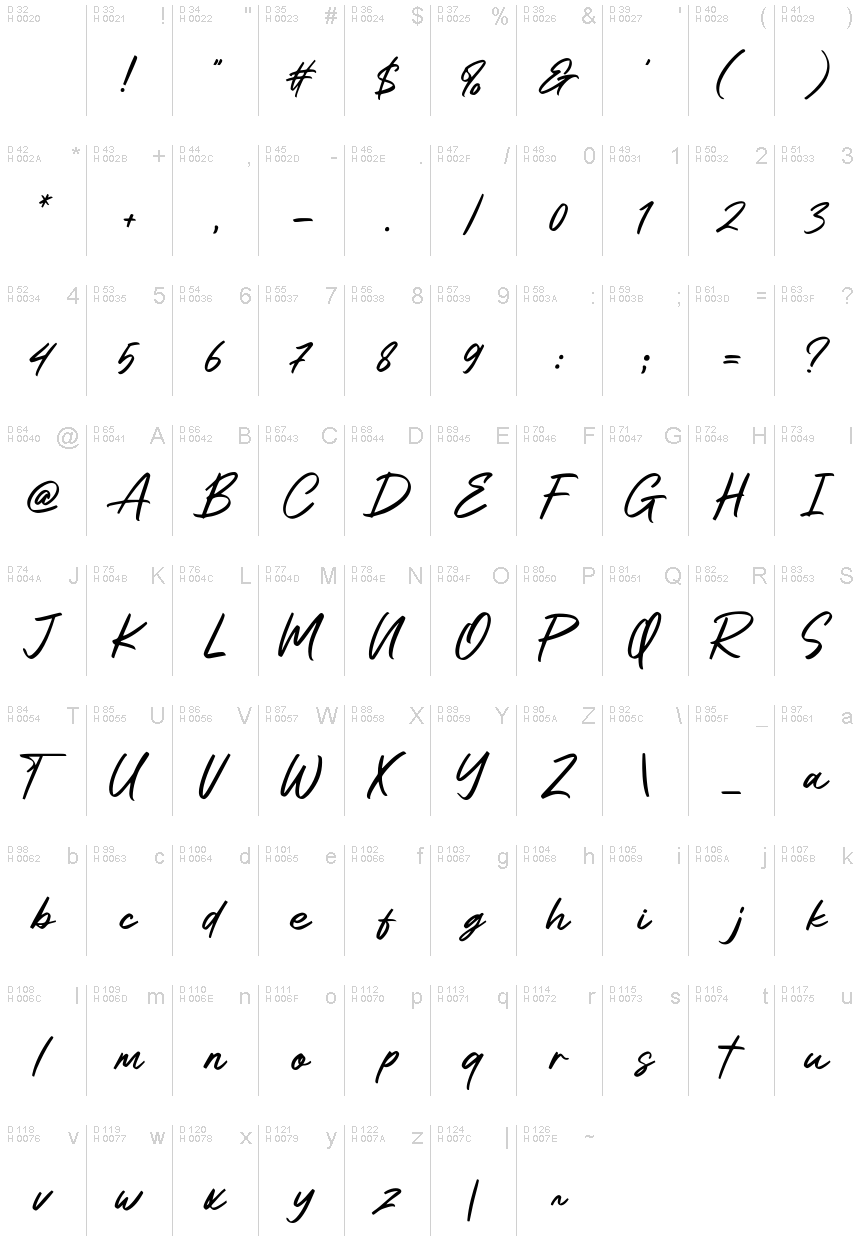
Automali
Automali, a captivating handwritten font crafted by Khurasan, exudes a fusion of elegance and dynamism. Its organic, flowing strokes evoke a sense of effortless grace, while the subtle variations in letter forms lend a distinctive, personalized touch. Automali's bold, confident presence commands attention, making it an alluring choice for projects that seek to convey a sense of warmth and authenticity.
The versatility of Automali shines through its seamless integration across diverse design applications. From editorial layouts and packaging design to branding and advertising collateral, this font's adaptability allows it to elevate a wide range of projects. Automali's expressive nature lends itself particularly well to projects requiring a touch of personalization, making it an ideal selection for wedding suites, greeting cards, and other personalized communications.